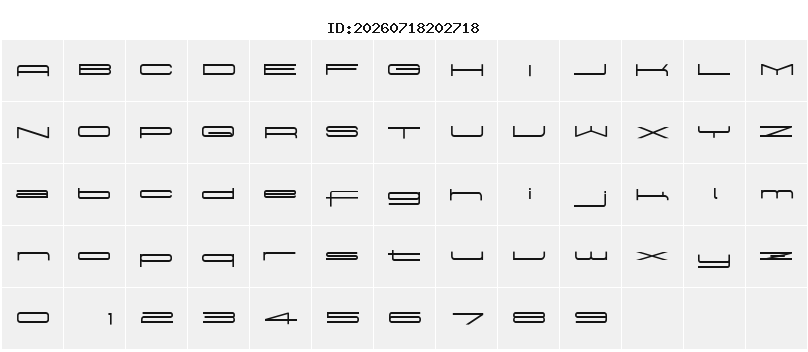
• Font Name: Crawler
• Full Font Name: Crawler
• Copyright: (C)1998,Fontaxe Digitype.Designed by K.Takahashi.
About Crawler.ttf
Crawler.ttf is a modern, elegant sans-serif font designed for ultimate readability and visual harmony. Perfect for branding, headlines, web design, and print materials.